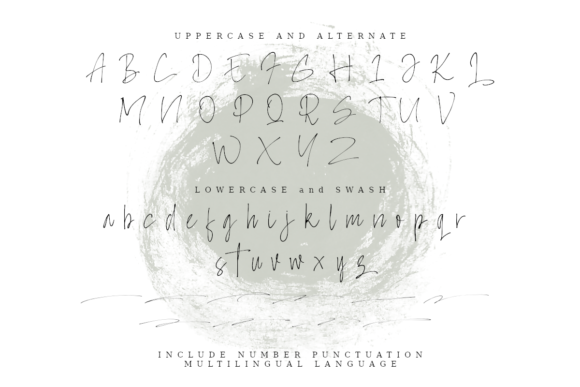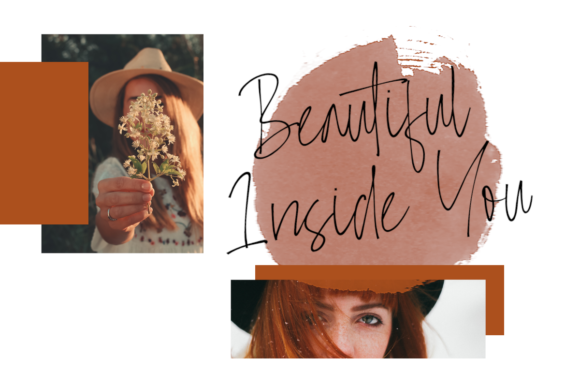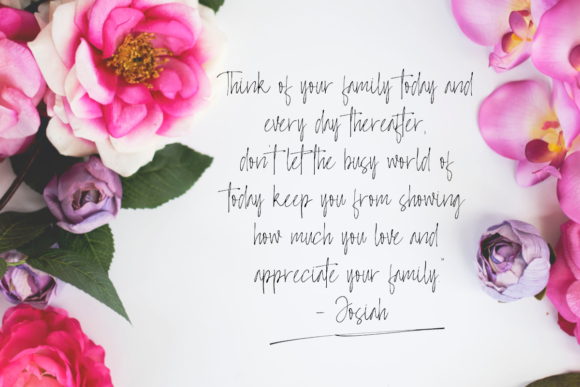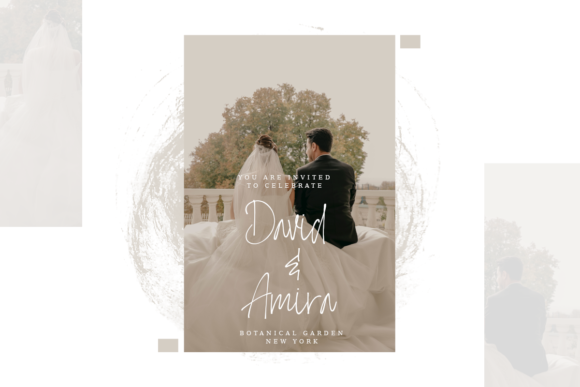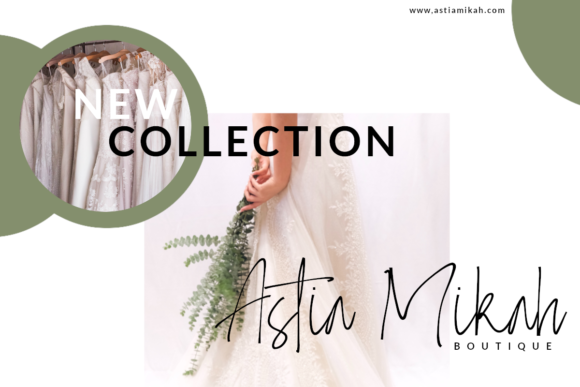
Introduction to Restiana West Font
Restiana West is a unique, modern and elegant handwritten font, that emanates sophistication and elegance.
Its stylish alternates and ligatures make this font the perfect match for any project .
Key Features of Restiana West Font